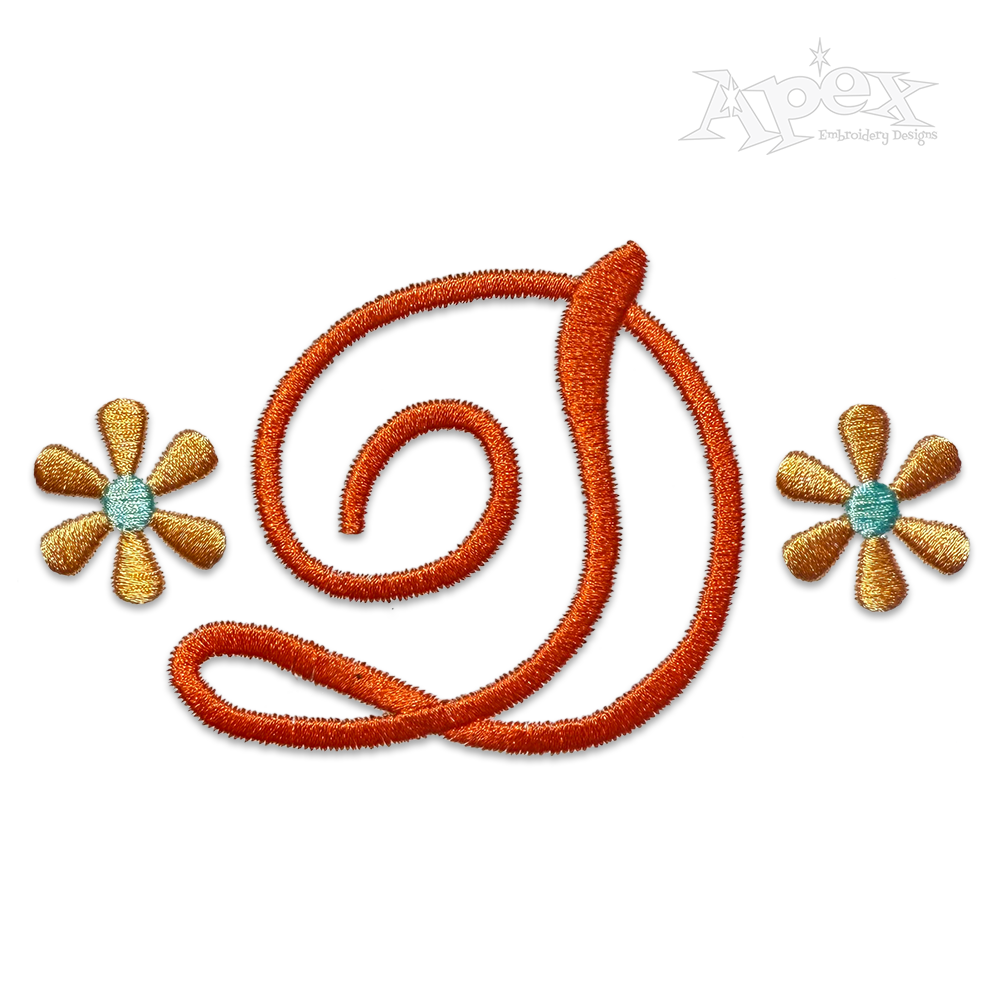
Pendulum Curly Embroidery Font
Conceived at the crossroads of rhythmic movement and classic calligraphy, the Pendulum Curly embroidery font captures an enchanting balance of stately elegance and spirited playfulness. Inspired by the hypnotic arc of an antique pendulum swinging into ribbon-like flourishes, this alphabet brings a joyous energy to personalized stitchwork. Each letterform is thoughtfully weighted with graceful stems that yield to sweeping, buoyant curls, catching the light across lustrous thread lines and giving your heirloom embroidery an unmistakable aura of bespoke celebration.
Project Ideas for Pendulum Curly Embroidery Font
- Linen Cocktail Napkins: Add a splash of personality to entertaining essentials with a spiraling initial stitched in rich tonal or metallic thread on crisp hemstitch linen.
- Bespoke Resort Wear: Elevate canvas totes, straw beach bags, and breezy linen button-downs with an airy, vacation-ready monogram.
- Heirloom Nursery Pieces: Bestow sweet, fairytale charm upon christening gowns, waffle-weave baby blankets, and personalized nursery pillows.
- Bridal & Celebration Robes: Stitch shimmering satin initials onto bridal party kimono robes, velvet travel pouches, or cosmetic bags for memorable, personalized gifting.
- Curated Bedding & Towel Sets: Transform fine percale pillow shams and thick terry bath sheets into custom boutique hotel luxuries.
- Corner Diagonal: Angle a single letter at 45 degrees into the lower corner of dinner napkins, handkerchiefs, or throw blankets, allowing the whimsical tail of the letter to flow naturally toward the hem.
- Center Chest: Position a bold 3-inch initial centered over the heart on loungewear, pajama pockets, or lightweight knits.
- Border & Band Accents: Center the monogram along the woven dobby band of guest towels or across the top cuff of a seasonal stocking.
- Sleeve & Cuff Alignment: Place a tailored 2-inch initial just above the cuff of a dressing gown or linen shirt for an understated touch of custom tailoring.
Pendulum Curly Craft & Letterform Details
Digitizing a font with exaggerated curls demands more than merely bending a satin column; it requires an intuitive understanding of thread tension, pull compensation, and radial light reflection. In the Pendulum Curly alphabet, every swirl is manually drafted with specialized underlay structures that anchor the fabric grain without adding stiffness. The satin stitch density gently graduates along the sweeping terminals, preventing thread buildup in tight curves and ensuring that the needle glides smoothly around every playful twist. The result is a polished, lofted embroidery finish that looks hand-calligraphed, delivering crisp edge definition and pure tactile dimension on every single stitch-out.